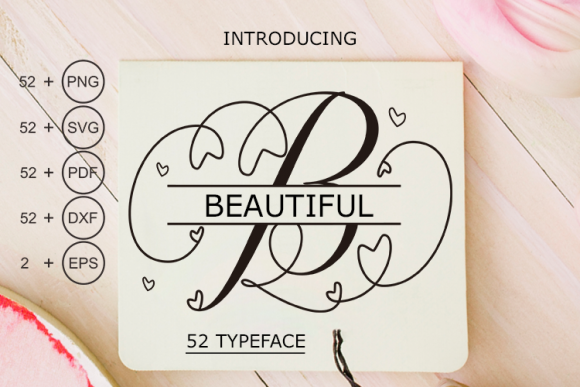
Unleash Your Creativity with Beautiful Font
Remember that moment when you stumbled upon the perfect font to match your design vision? It’s like finding the missing piece of a puzzle, and everything falls into place. For many designers, that moment is often accompanied by a sigh of relief and a rush of excitement. It’s in these moments that we discover the fonts that truly speak to us, and Beautiful Font is one such treasure.
Beautiful Font is an exquisite decorative font that adds an air of elegance to any design project. Its delicate ornaments and authentic feel make it an ideal choice for creating stunning wedding invitations, beautiful stationery art, eye-catching social media posts, and cute greeting cards. Whether you’re a professional designer or a creative enthusiast, Beautiful Font is a valuable asset that can elevate your designs to the next level.
With Beautiful Font, the possibilities are endless, and its versatility is unmatched. Its beauty lies not only in its aesthetic appeal but also in its ability to convey a sense of sophistication and refinement. As a designer, you’ll appreciate the time and effort that goes into crafting such a masterpiece, and with Beautiful Font, you’ll be able to create designs that truly stand out.
Beautiful Font Key Features
- Unique Characteristic: Beautiful Font features a unique blend of modern and classic design elements, making it perfect for both contemporary and traditional designs
Designer Review: Beautiful Font
I recently had the chance to work with “Beautiful Font” and here’s my honest review.
- Beautiful Font has a wide range of font styles that can cater to various design needs. It has a beautiful, elegant feel that can be used for headings, body text, or even for creative purposes like logos.
- The font is highly legible, even at smaller sizes, making it perfect for digital use.
- It’s also highly customizable, allowing designers to adjust the font weight, style, and even color to suit their design preferences.
- Unfortunately, Beautiful Font can be quite heavy, which may not be suitable for designs where space is limited.
- The font may not be ideal for use in very small sizes, as it may become difficult to read.
- Additionally, some users may find the font too ornate or busy, which can be a drawback for more minimalist designs.
Overall, I think Beautiful Font is a solid choice for designers who want a high-quality, elegant font that can elevate their designs. However, it’s essential to consider the limitations and use it judiciously to avoid overwhelming the design.
Tips for Getting the Most Out of Beautiful Font
To get the most out of Beautiful Font, try the following:
- Use it in combination with other design elements to create a cohesive look.
- Use Beautiful Font in headings and titles to draw attention.
Beautiful Font is ideal for:
- Designing logos and branding materials.
- Creating social media graphics and advertisements.
- Designing presentations and reports.
Alternatives to Beautiful Font for Designers
Aesthetic Sans
Aesthetic Sans is a clean and elegant sans-serif font ideal for designs requiring a touch of sophistication and modernity. It’s perfect for use in editorial content, fashion magazines, and luxury branding.
Compared to Beautiful Font, Aesthetic Sans has a more minimalist approach, making it ideal for modern designs where simplicity is key. Beautiful Font, on the other hand, has a more classic and traditional feel.
Delightful Script
Delightful Script is a beautiful, handwritten font perfect for adding a touch of personality and whimsy to designs. It’s ideal for use in invitations, social media graphics, and creative branding.
Yes, Beautiful Font is designed to be web-friendly and can be easily integrated into your website using the @font-face rule in CSS. You can also use online font services like Google Fonts or Font Squirrel to host the font and link to it from your website.